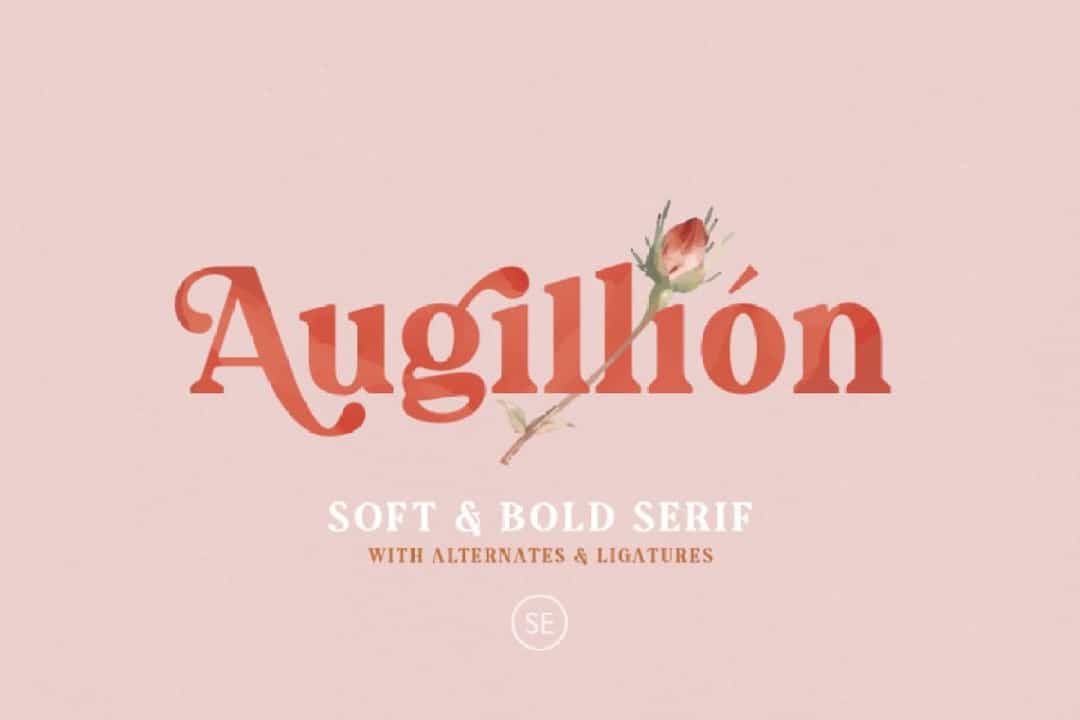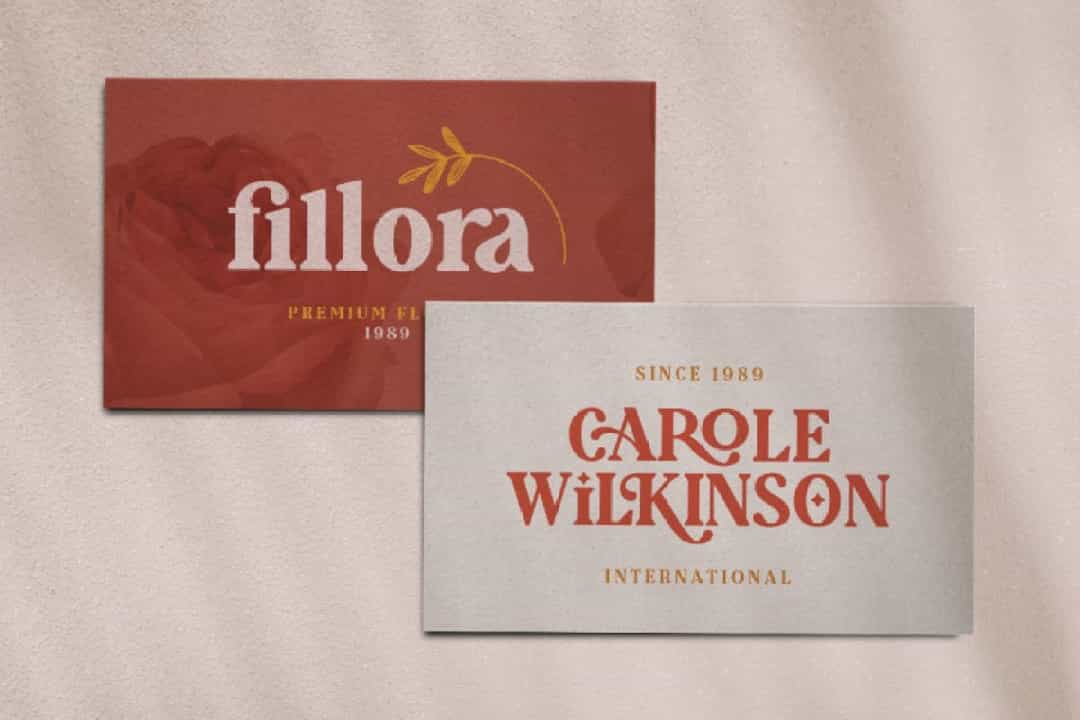
Augillion is a beautiful serif font with slightly sharp and bold characteristics and it has many stylistic ligatures that will enhance the logo or presentation and make it stand out even more! Augillion is also compatible with Multi Language because it has already been encoded with PUA. To get this special character you just need to type “A+.